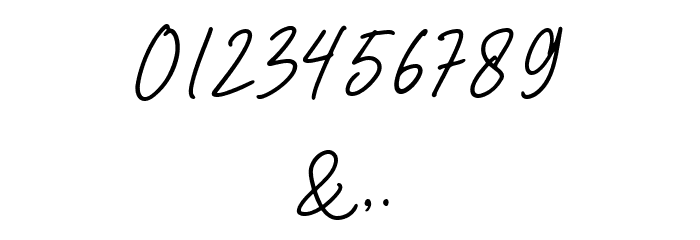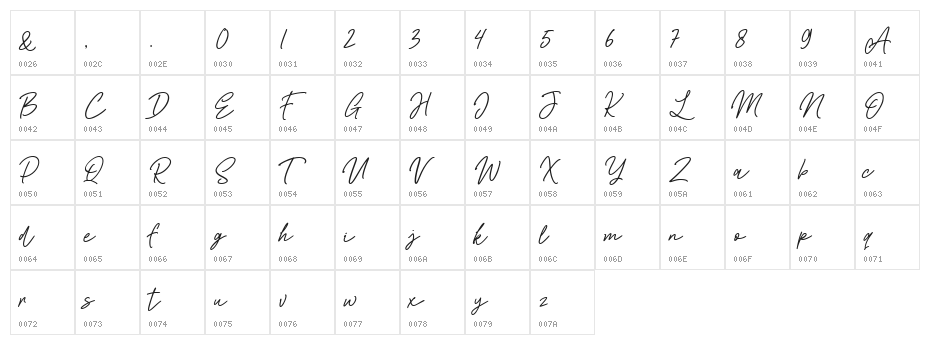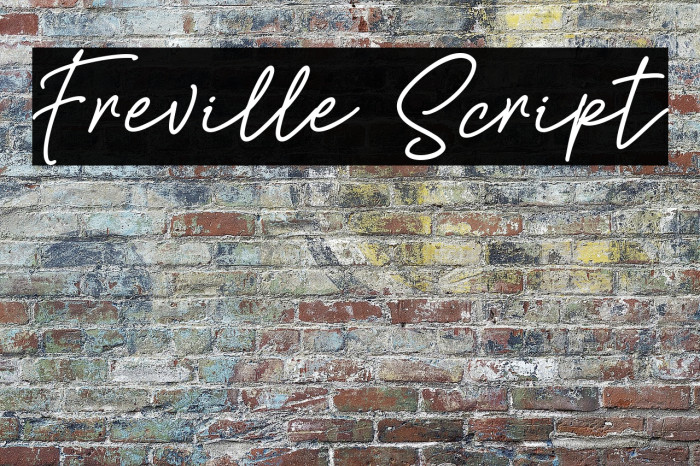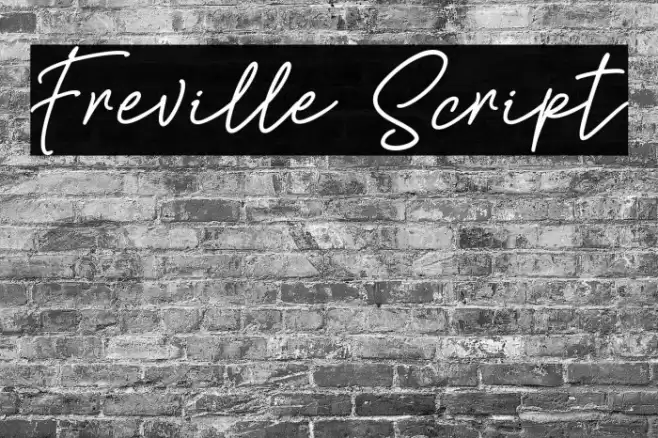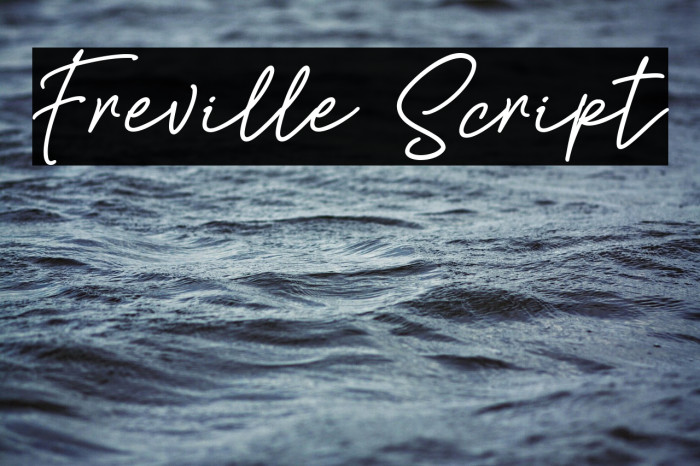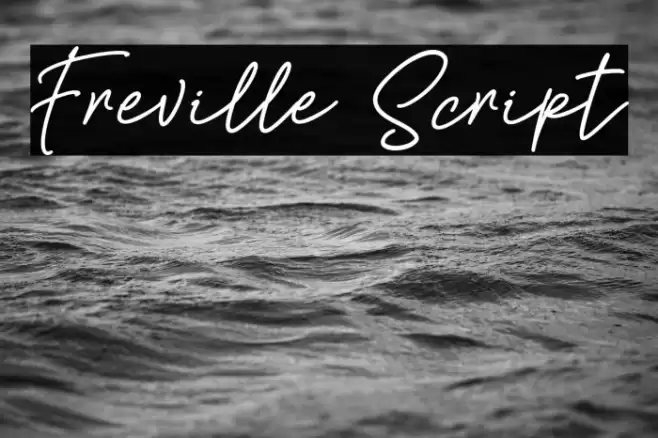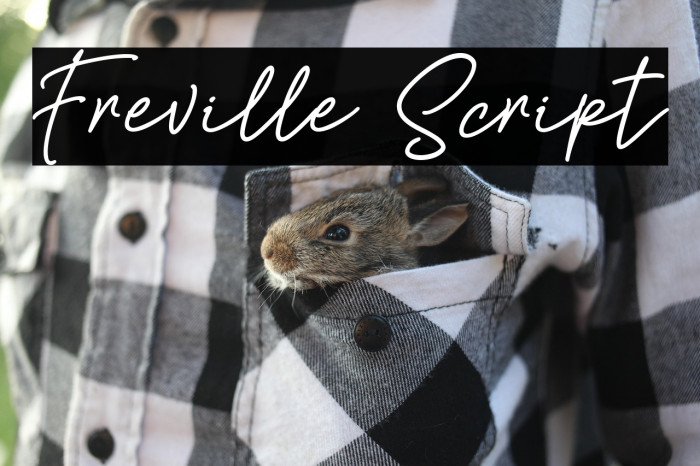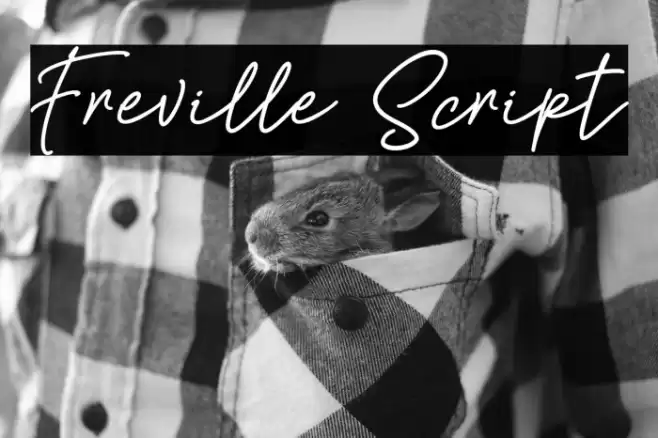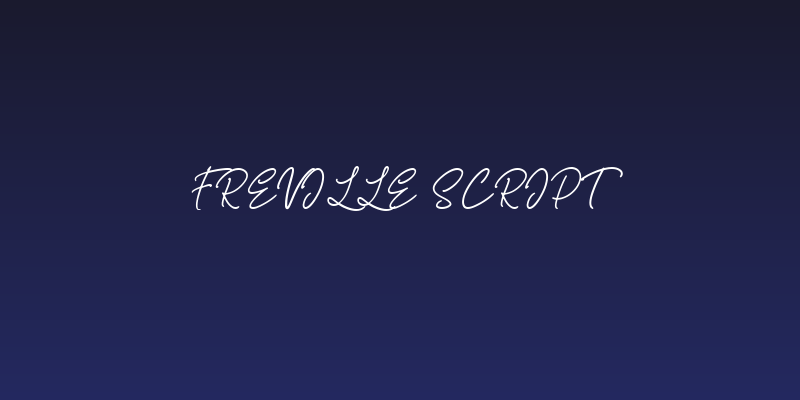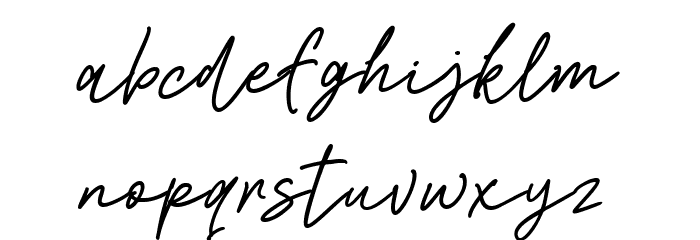
Freville Script Font
Freville Script Description
This elegant script font features fluid, connected strokes that mimic the natural flow of handwriting. The uppercase letters are slightly more embellished with graceful loops and curves, while the lowercase letters maintain a consistent, flowing style. The numerals are distinct yet harmonize well with the alphabet, maintaining the same fluidity. The special characters, such as the ampersand, are crafted with a similar attention to detail, ensuring a cohesive look across all characters. This font exudes a sense of sophistication and charm, making it ideal for projects that require a personal touch.
| Use Case | Logos, Invitations, Personal branding |
| Proposed Projects | Ideal for wedding invitations, greeting cards, personal branding, and elegant packaging designs. |